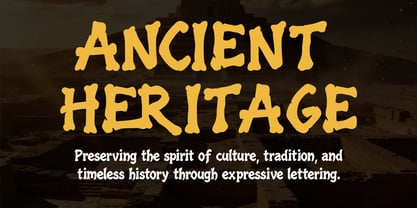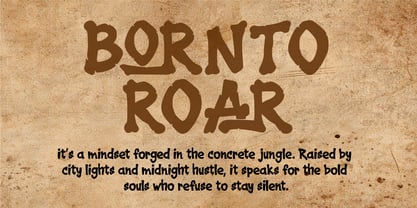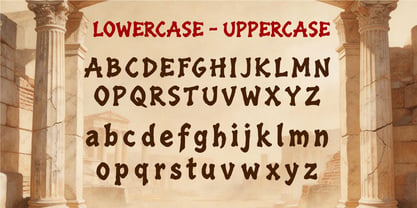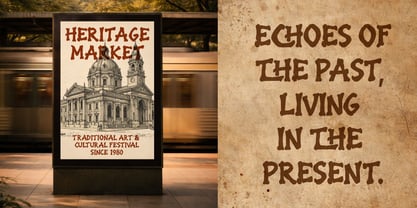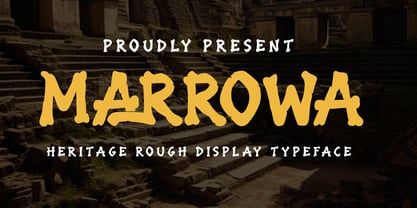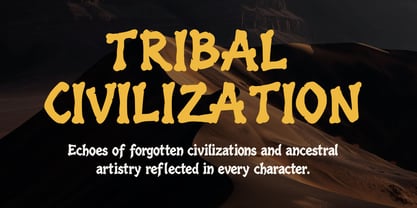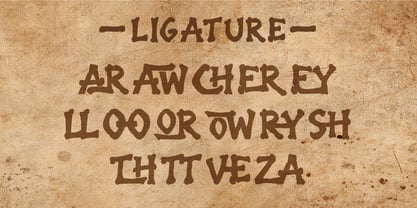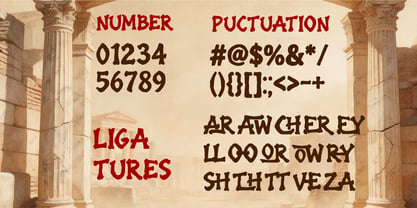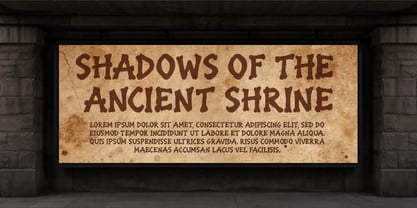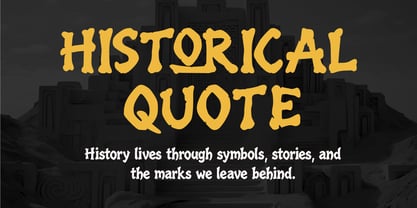
Marrowa
Die Schriftfamilie Marrowa wurde von Wirandi Limansyah Zendrato entworfen und von Elevra veröffentlicht. Marrowa enthält 1 Stile. Mehr über diese Familie
Marrowa is a bold heritage-inspired rough display typeface that captures the spirit of ancient culture and timeless history. With its organic shapes, rough edges, and expressive letterforms, this font brings a strong historical atmosphere that feels both raw and authentic. Inspired by ancient civilizations, traditional carvings, and cultural heritage aesthetics, Marrowa delivers a powerful visual presence that makes it perfect for designs that need a primitive, historical, or tribal character. Its rugged texture and handcrafted style create a natural and authentic impression, making it ideal for cultural branding, historical posters, adventure themes, and heritage storytelling. Whether you're designing for ancient themes, cultural events, museum exhibitions, or historical branding, Marrowa brings a bold and timeless typographic voice to your design.